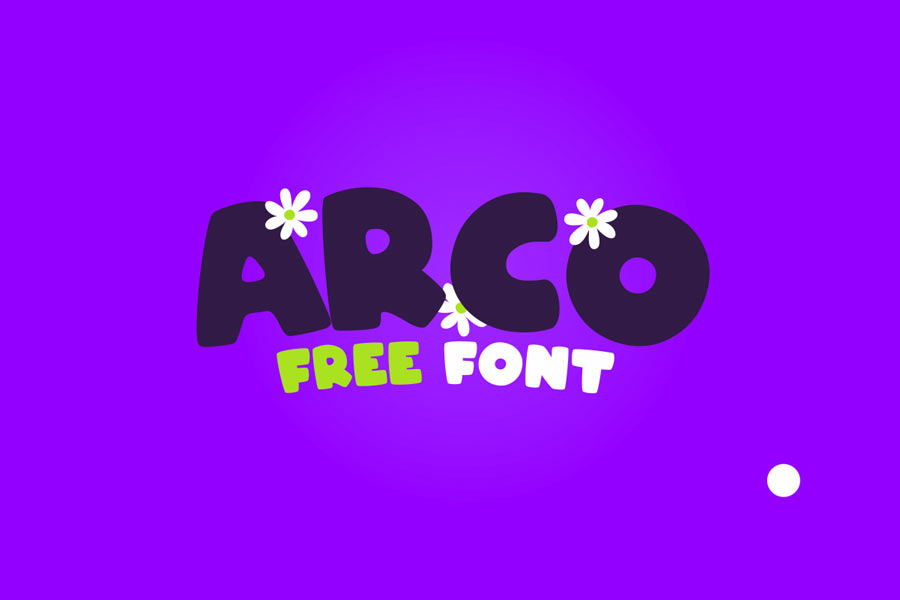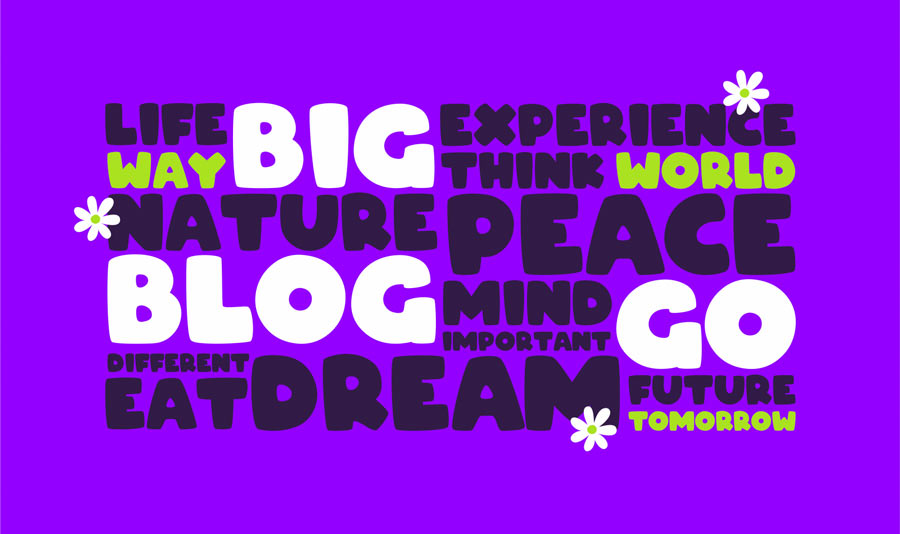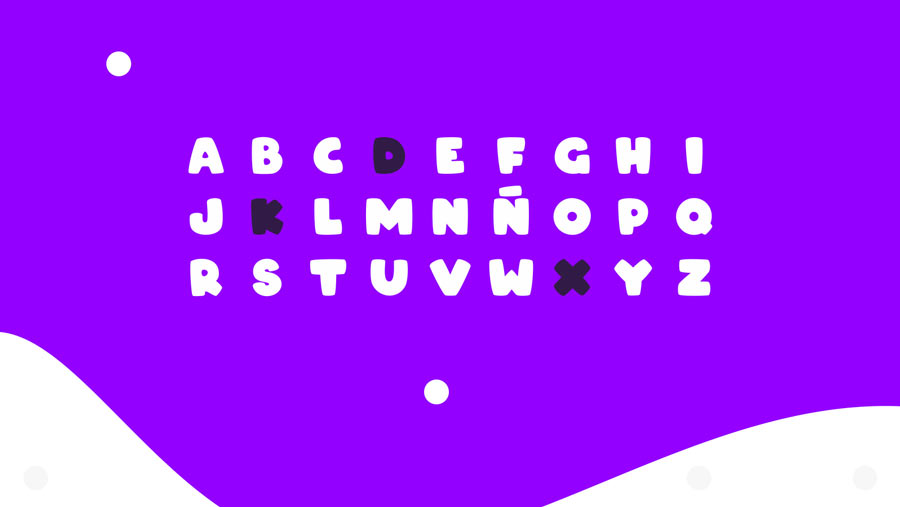
Arco is a roundish fat font that is cute in presentation. This uppercase-only font is bold in appearance, and has lines that are slightly curved, creating a sense of chubbiness.
Arco is suitable for designs for the younger audiences, however it might not be suitable to use in smaller font sizes as it can be difficult to read. Arco is free to download and available for both personal and commercial works (accreditation is required). It comes with 80 characters including commonly used symbols.